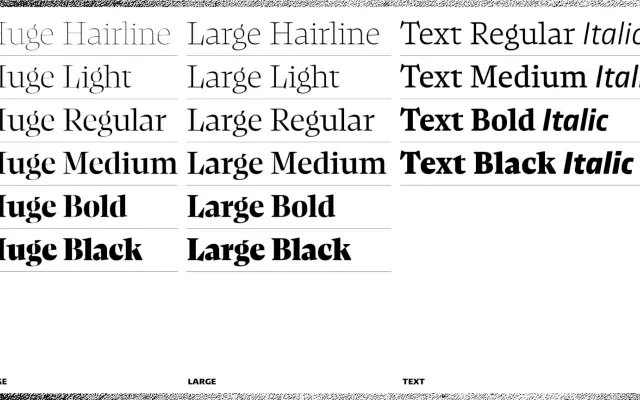
NewsSerif
Character Type · Henning Skibbe
A 20-style editorial serif by Henning Skibbe, built across three optical subfamilies that grow progressively more expressive from text to display sizes.
Designed as the companion to NewsSans, the family covers Text, Large and Huge subfamilies, with letter shapes becoming increasingly excessive and expressive as size increases. Wedge-shaped serifs and playful stroke contrast define the overall character, and each style ships with over 700 glyphs including small caps, multiple figure sets and arrows. Text roman styles are paired with italics drawn from NewsSans, an unconventional but deliberate cross-family pairing that the foundry balances carefully across weights.
A serif with expressive wedge-shaped serifs and playful contrast, designed explicitly for editorial use across text and display sizes, with letter forms that grow increasingly expressive through its three optical subfamilies.